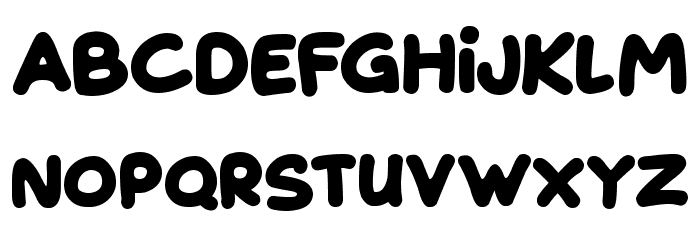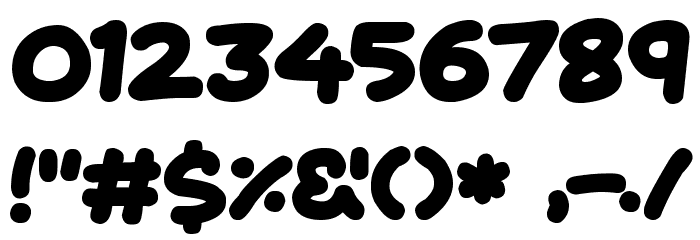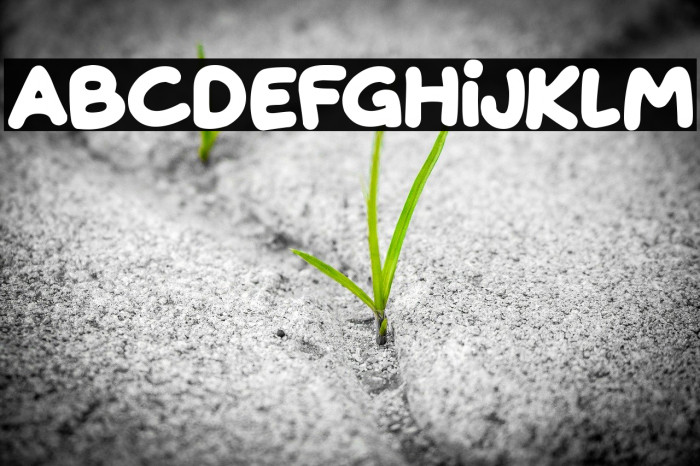
Magical Markers Font
This playful and bold font features rounded, bubble-like characters that convey a sense of fun and creativity. The letters are thick and uniform, with a consistent stroke width that gives the font a cohesive appearance. The characters are slightly irregular, adding to the whimsical and informal style. This font is highly legible, with clear distinctions between each letter and number. The special characters maintain the same playful aesthetic, making them suitable for a variety of creative applications.
A playful, bold font with rounded, bubble-like characters.
- Proposed Projects: Ideal for children's books, playful branding, party invitations, and creative posters.
- Overall Style: Playful, Whimsical